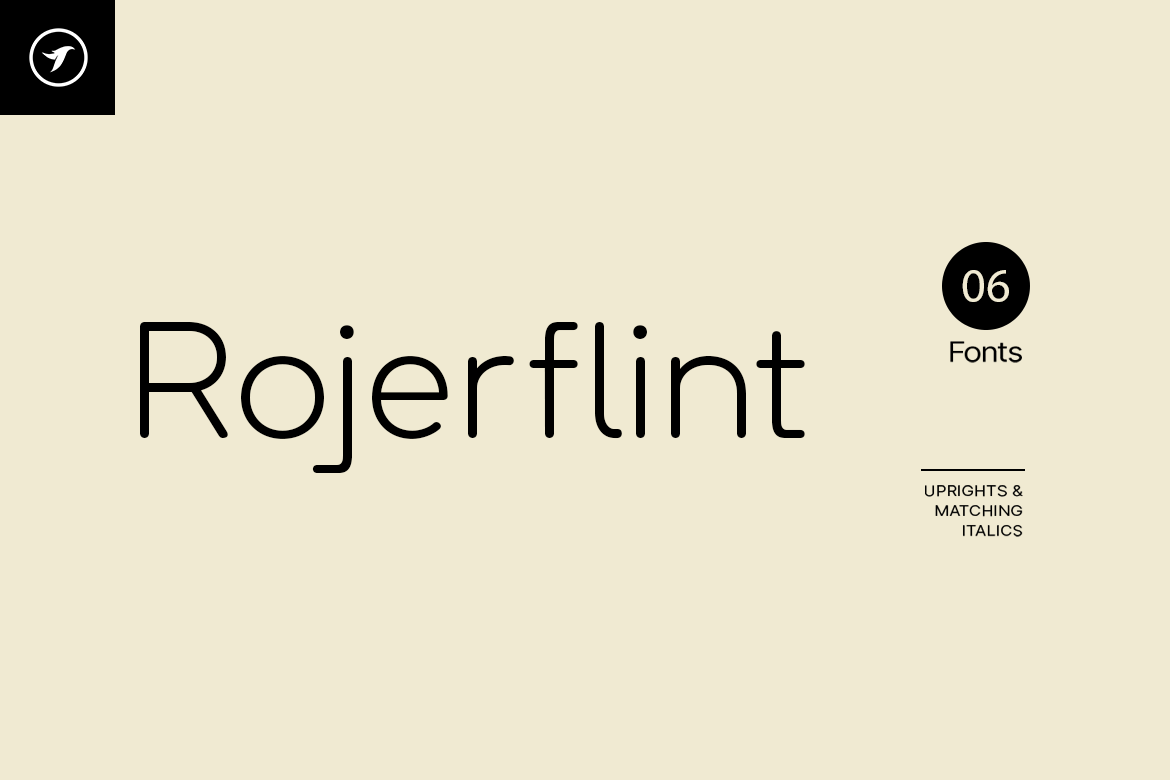
ROJERFLINT - Unique Font Family
ROJERFLINT is a unique and hybrid sans-serif font family that can be used for branding, logotypes, and display purposes. It is especially suitable for creating exceptional logos, promotional content, and marketing graphics that can capture your visitors' attention. By adjusting the letterspacing of the font, you can have more design options for your creative projects. Take a look at the examples above to get a better idea of the potential of this typeface.
The ROJERFLINT family contains a total of 6 fonts featuring three weights with uprights and italics. Each weight includes extended language support including Western European & Central European sets. A total of 336 glyphs are included. The pack contains OTF, TTF as Desktop fonts, and optional Web Fonts (all EOT, SVG, TTF, WOFF, and WOFF2 formats included) as licensing options.